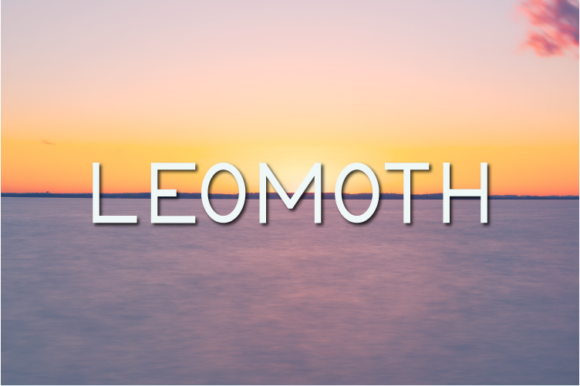
Harness the power of Leomoth, the font meticulously crafted to elevate your branding to new heights. Its clean lines and captivating curves create a lasting impression that embodies both professionalism and creativity.
Immerse yourself in a world where your words captivate and inspire, thanks to Leomoth's versatile nature. Whether you seek to craft a striking business card or weave captivating web designs, this font effortlessly adapts to your needs, making it a cornerstone for any modern branding strategy.
Unleash your inner designer and let Leomoth guide you. Its sleek lines lend an air of sophistication, while its subtle curves add a touch of elegance. Witness your designs transform into masterpieces, exuding both confidence and creativity.
Step into the spotlight and let your words shine brighter than ever before. Leomoth's clean and legible design ensures that your message is conveyed with crystal clarity, leaving an unforgettable mark on your audience.
Embark on a typographic adventure with Leomoth, the font that empowers you to turn your creative visions into stunning realities. Its versatility knows no bounds, allowing you to effortlessly elevate your branding and make your designs stand out in the digital landscape.